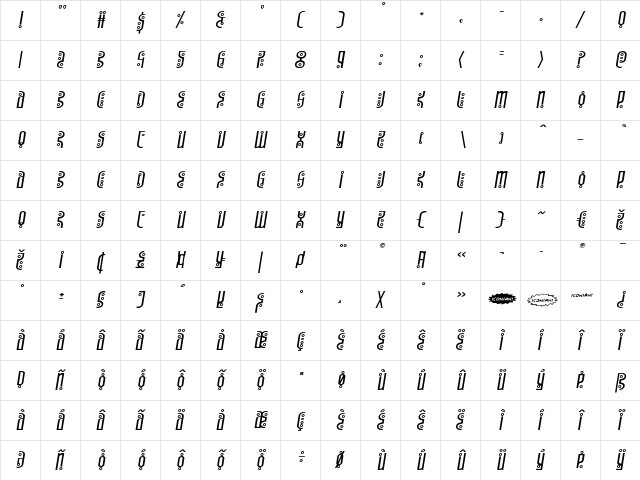
Underground Rose Expanded Italic Font Preview
Design Context for Underground Rose Expanded Italic Typeface
Underground Rose Expanded Italic softens its letterforms with rounded terminals, giving it an approachable, friendly quality that works well in consumer-facing and digital contexts. The dynamic lean of this cut emphasises speed and emphasis in any layout.
Well-suited to UI design, mobile interfaces, and any brand that wants approachability without sacrificing clarity.
Font Pairing: Pairs well with a rounded or humanist sans for body copy, maintaining the friendly tone without relying on Underground Rose Expanded Italic to carry extended reading.
Pro Tip: Use Underground Rose Expanded Italic for UI elements, app interfaces, and anywhere a friendly, approachable tone needs to be maintained without sacrificing clarity.